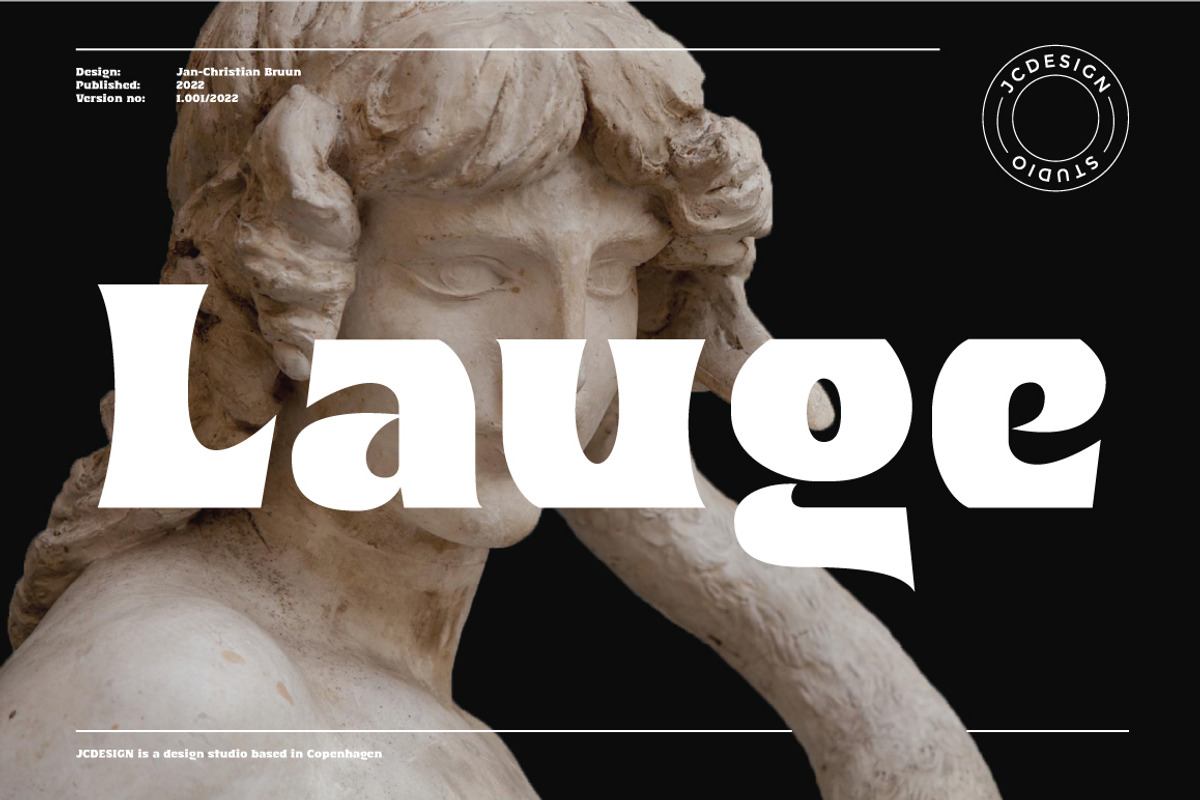
Lauge Font Free Download is a sleek and modern typeface designed for a variety of design projects. With its clean lines, balanced proportions, and elegant aesthetic, this font is perfect for logos, branding, websites, editorial layouts, and more.
Its versatility allows it to work across many different design styles, making it an excellent choice for both professional and creative projects. Whether you’re designing a corporate identity, promotional materials, or social media graphics, Lauge offers clarity, sophistication, and timeless appeal. Lauge Font Free Download allows you to test this stylish typeface in personal projects before purchasing a commercial license.
Add elegance and simplicity to your designs with Lauge — the modern font that speaks clarity and style.